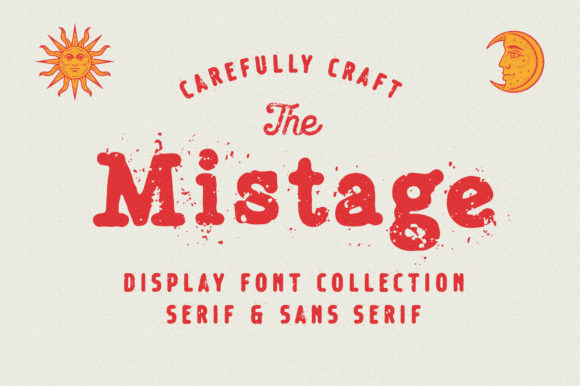
Prepare yourself to be mesmerized by Mistage Font, a stunning duo font that exudes vintage charm and modern elegance. This captivating creation by Edignwn Type is not just a font; it's an artistic expression waiting to be unleashed.
Immerse yourself in the world of Mistage Font, where classic meets contemporary, and ordinary designs transform into captivating masterpieces. Its meticulously crafted characters dance across the page, leaving a trail of visual delight.
With Mistage Font, you embark on a creative journey where your imagination takes center stage. Whether you're a seasoned designer or just starting, this font will elevate your projects to new heights, adding a touch of sophistication and uniqueness.
Gone are the days of bland and repetitive fonts. Mistage Font breathes life into your designs, making them stand out from the crowd. Experience the joy of creating designs that resonate with your audience, leaving a lasting impression that they won't soon forget.
Unleash your creativity and let Mistage Font guide you towards design excellence. Embrace the power of this font duo, and watch as your projects blossom into stunning works of art.
Indulge in the beauty of Mistage Font and unlock a world of endless creative possibilities. Step into a realm where typography meets artistry, and prepare to be spellbound by the magic that unfolds.